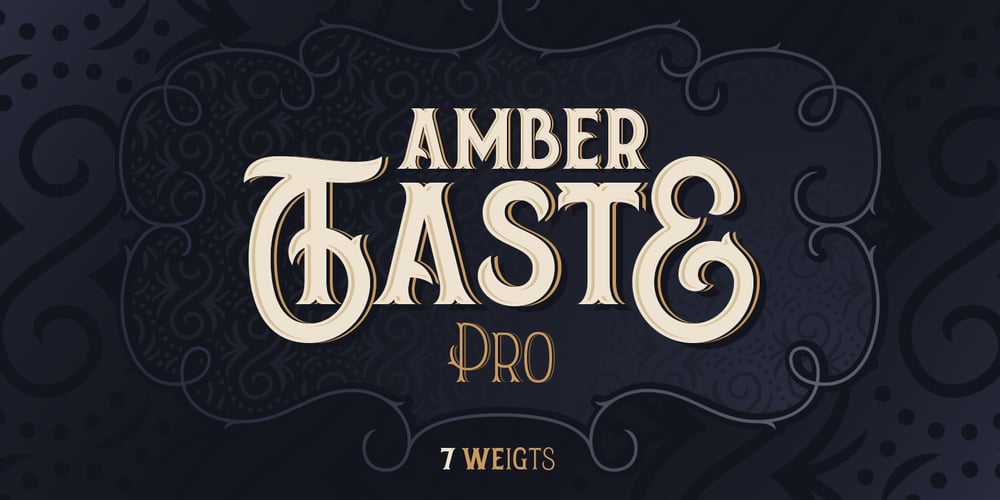
Amber Taste Pro
Amber Taste Pro font
Amber Taste Pro Font Family was designed by Gleb Guralnyk and published by Gleb Guralnyk. Amber Taste Pro contains 7 styles and family package options. Hi, introducing an Amber Taste Pro font. It’s a vintage typeface with classic shape. Seven weights variations from thin to bold is available. Actually this font set is a remastered version of my best selling font Amber Taste with lots of improvements.Pro version has much more characters, including multilingual west european support. All the contours was cleaned up and several glyphs has a new more organic shape.Thank you and have a nice day!